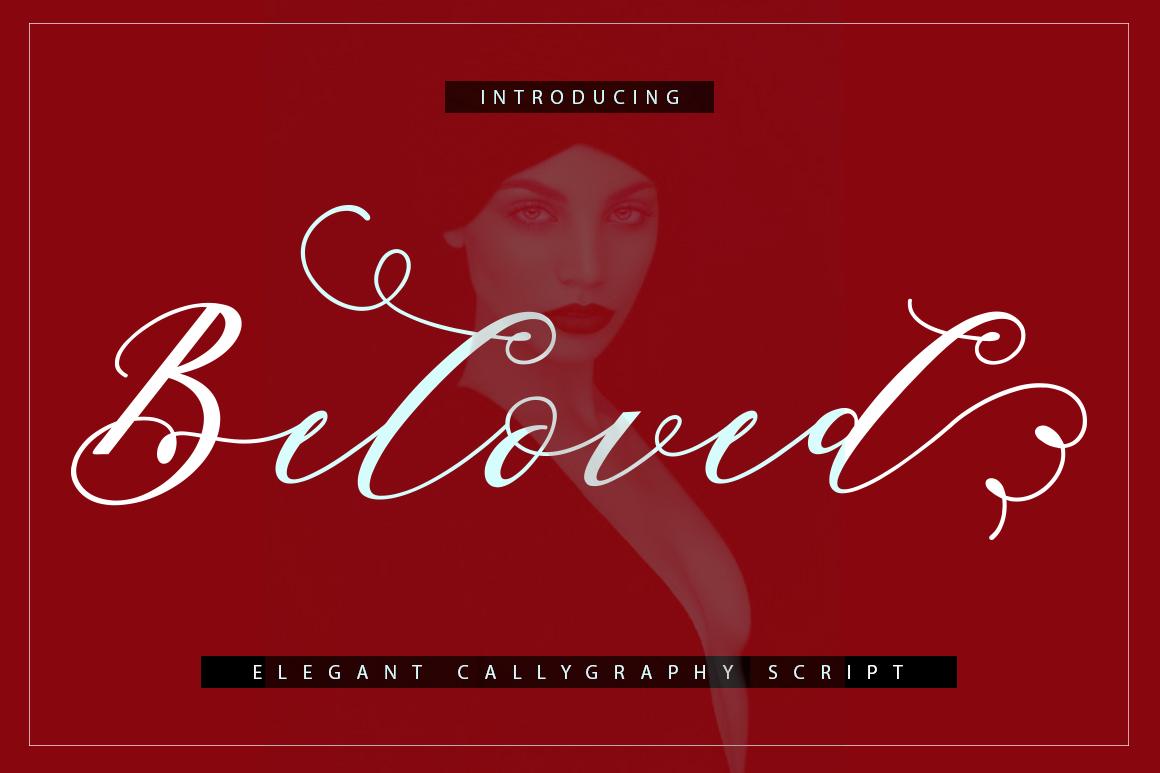
Beloved Script Font Description
Beloved Script is a modern, feminine font. It has a modern style that you can apply to a lot of different types of projects. Works well for both personal-themed projects such as wedding invites, photo quotes, and professional designs, such as branding, logos, apparel, and more.